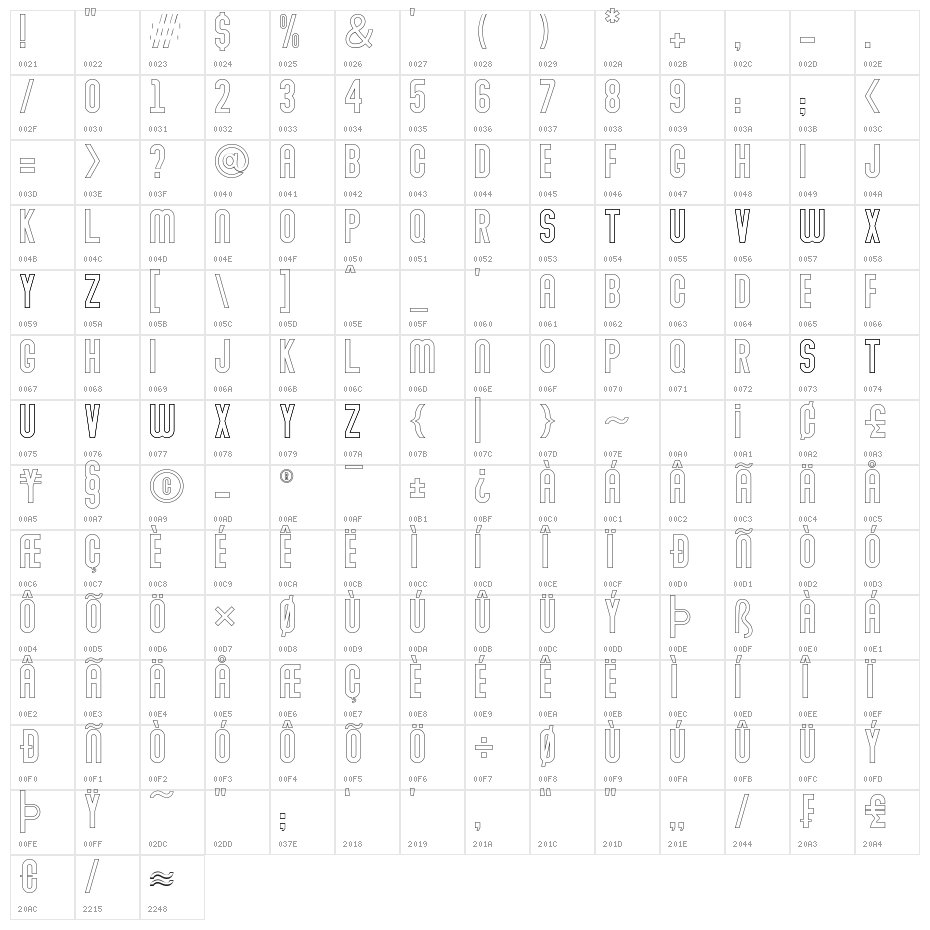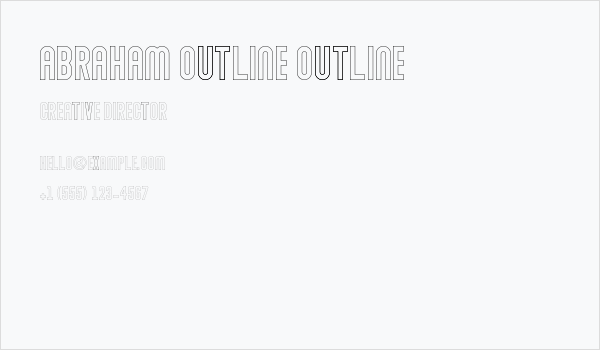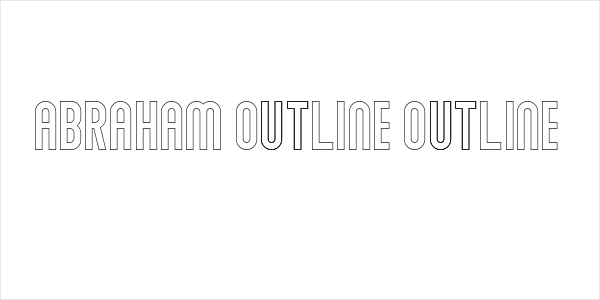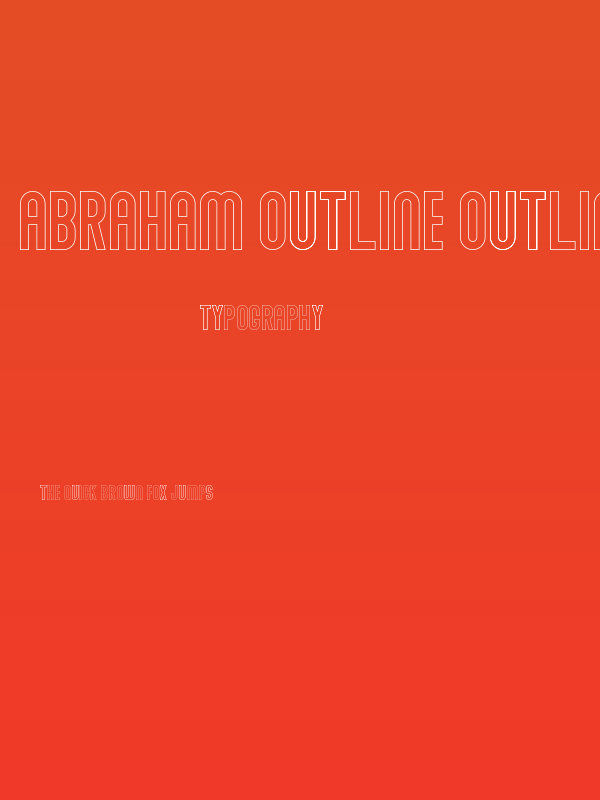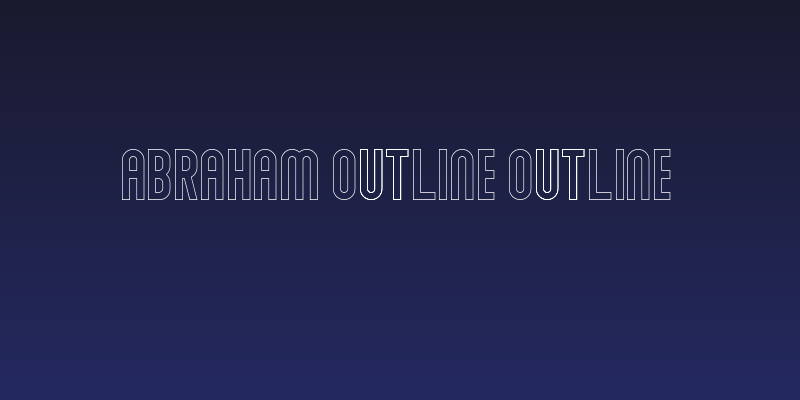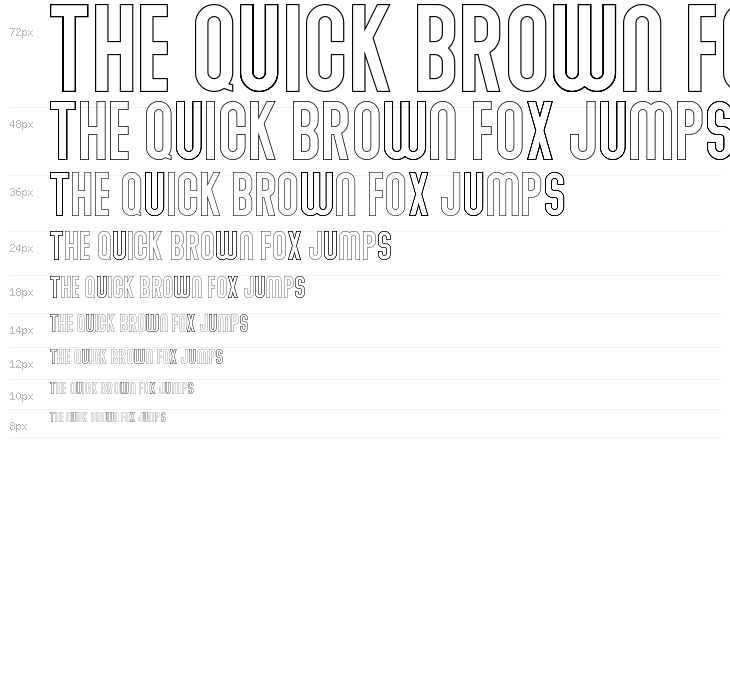
Abraham Outline Font
Abraham Outline Description
This font features a clean and modern outline style, characterized by its bold and geometric letterforms. The uppercase and lowercase letters maintain a consistent width, creating a harmonious and balanced appearance. The numerals and special characters are designed with the same attention to detail, ensuring uniformity across all glyphs. The outline design gives it a unique and eye-catching look, making it suitable for various creative applications. Its simplicity and clarity make it versatile for both digital and print media, while the outlined nature adds a layer of sophistication and modernity.
| Proposed Projects | Ideal for branding, posters, headlines, and digital media where a modern and striking appearance is desired. |